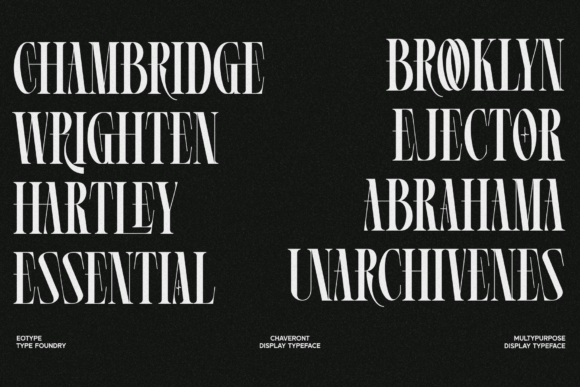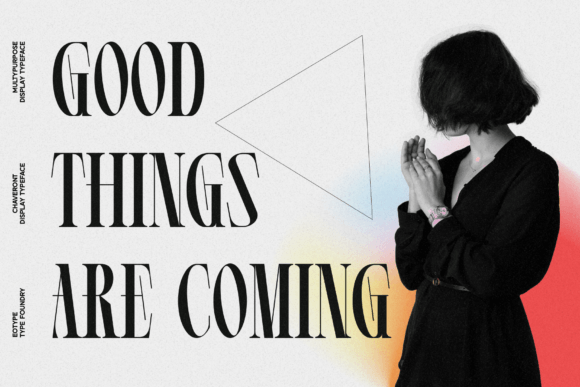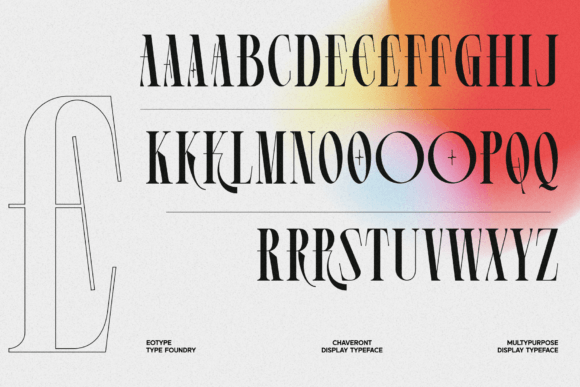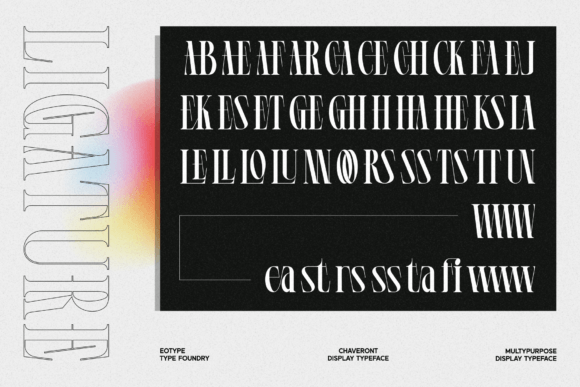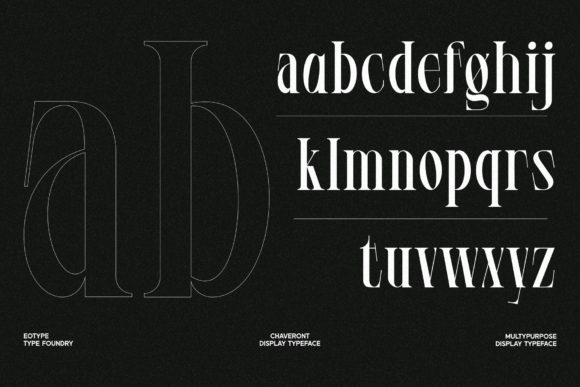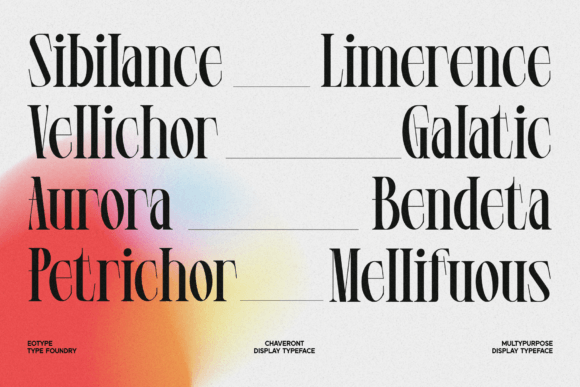
Introducing Chaveront Font: Elevate Your Designs with Elegance and Sophistication
In the world of typography, a font can make or break a design. For designers and crafters looking to add a touch of elegance and sophistication to their projects, Chaveront Font is an exceptional choice. This stylish condensed display font boasts a strong and elegant look, making it perfect for creating stunning logotypes, magazine covers, posters, headlines, and more.
The Unique Characteristics of Chaveront Font
Chaveront Font stands out from the crowd with its unique blend of style and functionality. Its condensed design allows for a sleek and modern look, while its elegant lines and curves add a touch of sophistication. Whether you’re working on a branding project, a magazine cover, or a poster, Chaveront Font is sure to make a statement.
One of the key features that sets Chaveront Font apart is its PUA (Private Use Area) encoding. This means that you can access all the glyphs and ligatures with ease, giving you complete creative control over your design. With Chaveront Font, you can experiment with different combinations of letters and symbols to create truly unique and eye-catching designs.
Chaveront Font is incredibly versatile, making it suitable for a wide range of design projects. Here are just a few examples of how you can use this amazing font:
- Logotypes: Create stunning logos that make a lasting impression with Chaveront Font’s elegant and condensed design.
- Magazine Covers: Add a touch of sophistication to your magazine covers with Chaveront Font’s strong and stylish look.
- Posters: Make your posters stand out from the crowd with Chaveront Font’s unique blend of style and functionality.
- Headlines: Add a touch of elegance to your headlines with Chaveront Font’s beautiful lines and curves.
Why Choose Chaveront Font?
With so many fonts available, why choose Chaveront Font? Here are just a few reasons why designers and crafters love this amazing font:
- Unique Design: Chaveront Font boasts a unique and stylish design that is sure to make your designs stand out.
- Ease of Use: With PUA encoding, accessing glyphs and ligatures is easy, making it simple to get the look you want.
- Versatility: Chaveront Font is suitable for a wide range of design projects, from logotypes to posters.
- Elegance: Add a touch of sophistication and elegance to your designs with Chaveront Font’s beautiful lines and curves.
Tips for Getting the Most Out of Chaveront Font
To get the most out of Chaveront Font, here are a few tips to keep in mind:
- Experiment with Different Sizes: Chaveront Font looks great in a variety of sizes, so don’t be afraid to experiment to find the perfect fit for your design.
- Play with Ligatures: With PUA encoding, you can easily access ligatures to add a touch of elegance to your designs.
- Mix and Match: Try pairing Chaveront Font with other fonts to create a unique and eye-catching design.
In conclusion, Chaveront Font is an exceptional choice for designers and crafters looking to add a touch of elegance and sophistication to their projects. With its unique design, ease of use, and versatility, this stylish condensed display font is sure to make a statement. Whether you’re working on a branding project, a magazine cover, or a poster, Chaveront Font is the perfect choice. So why wait? Download Chaveront Font today and elevate your designs to the next level!